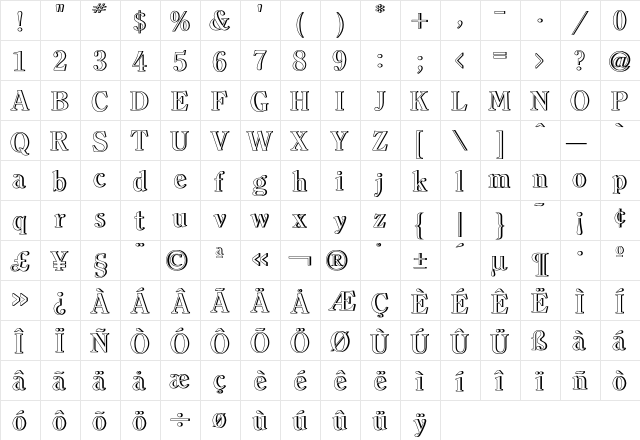
Clearface OutlineShadow Font Preview
Clearface OutlineShadow
Clearface OutlineShadow Font Details
Design Context for Clearface Typeface
Clearface brings ornamental detail and strong personality to headlines and identities, where visual impact matters more than quiet functionality.
Font Pairing: Pair with a clean neutral sans-serif for body copy to let Clearface's character lead without overwhelming the composition.
Pro Tip: Use Clearface exclusively at display sizes — it was designed to be seen, not read at length. Let a neutral companion handle body copy.